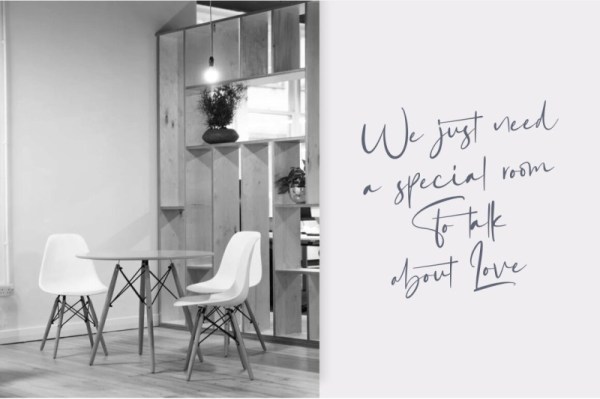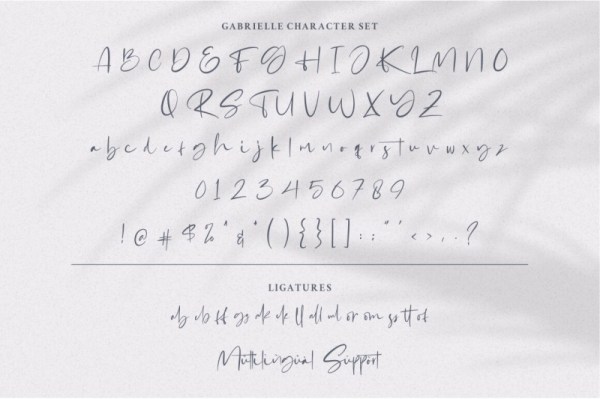
Freebie Wednesday: Gabrialle Casual Script Font.
Gabrialle – Casual Script Font is a modern and elegant font can be used for any variety of purposes, such as: Photography, Wedding Invitation, Packaging Product, Logo Type, Brand, and also can be used for personal purpose.